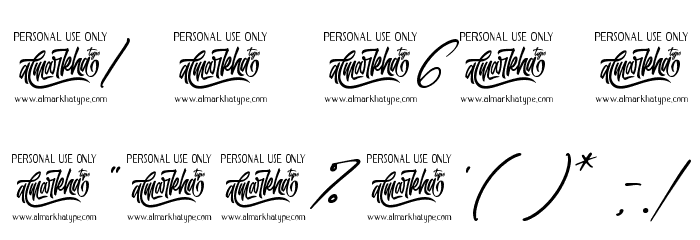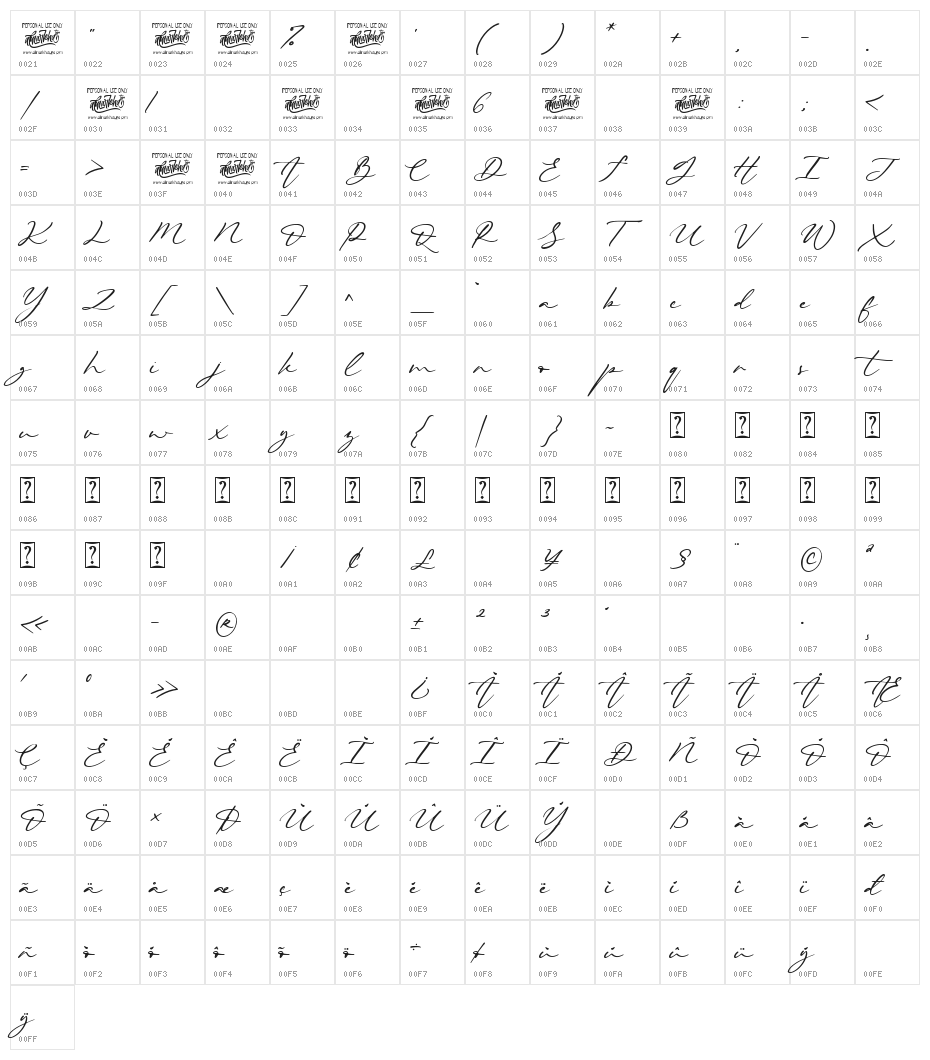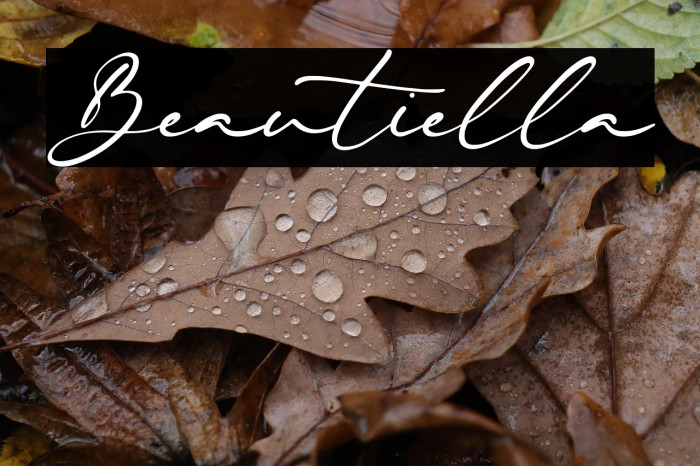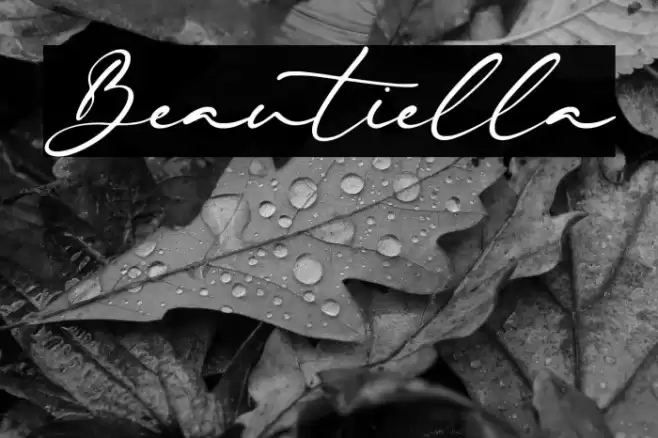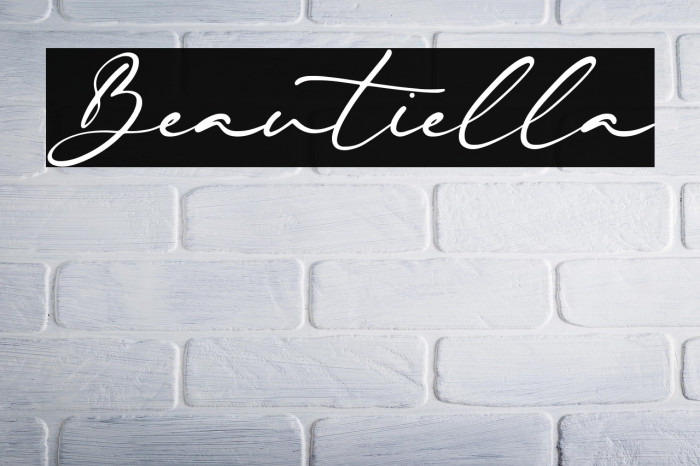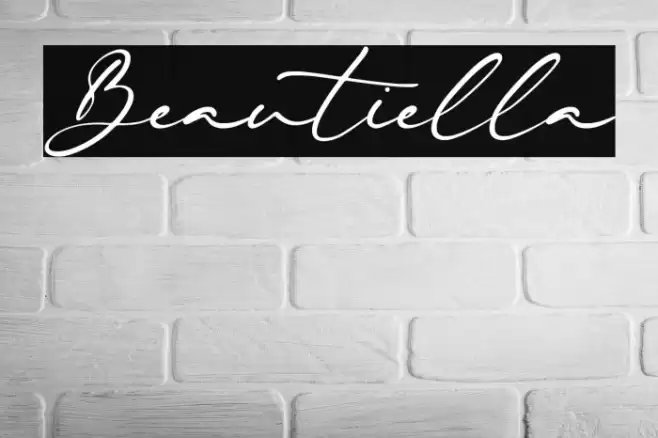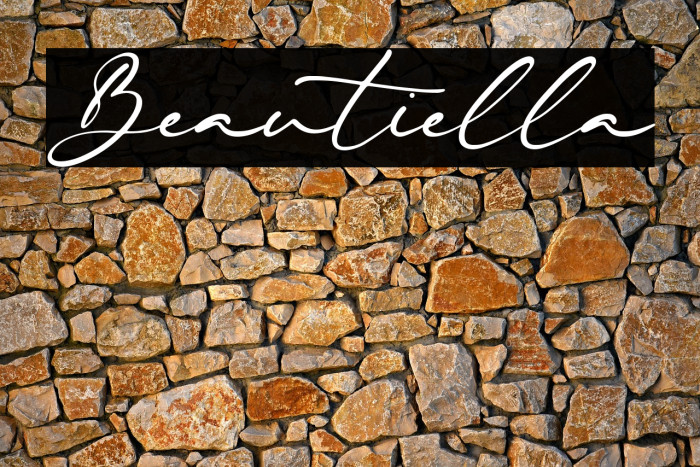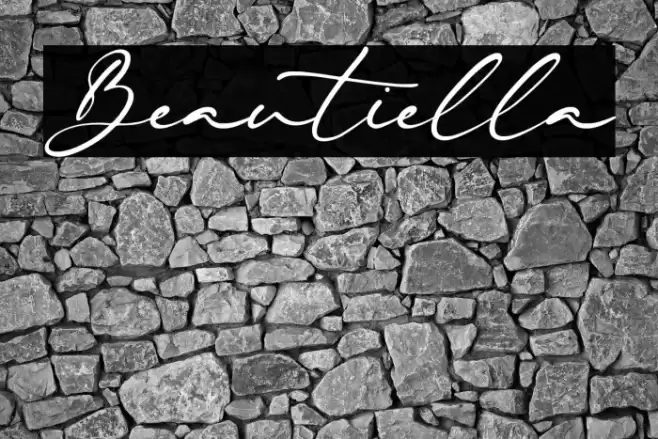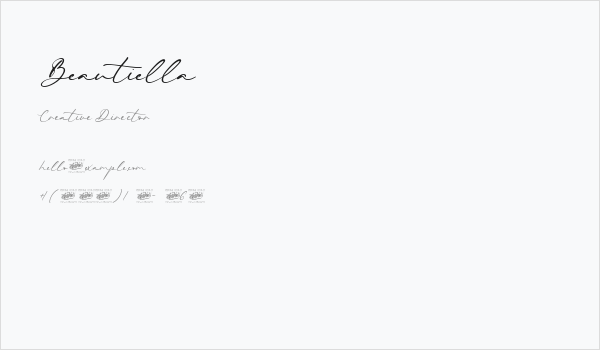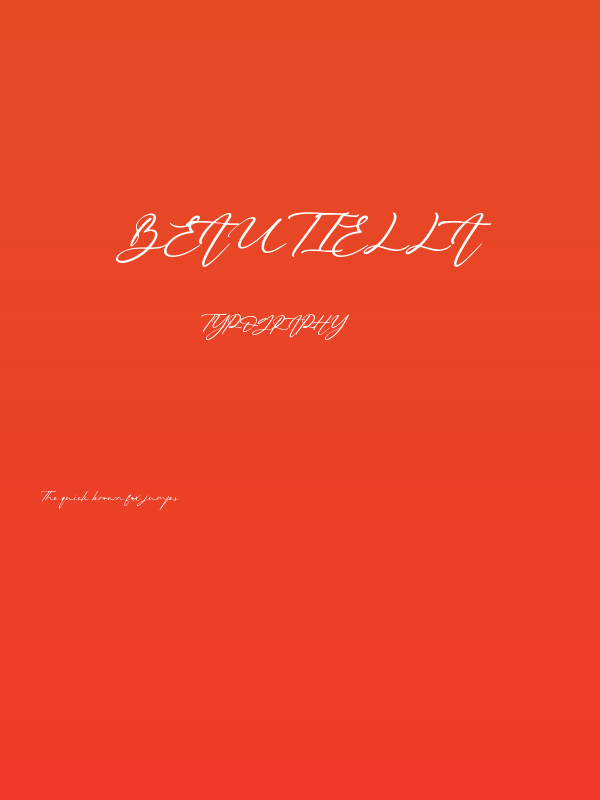
Beautiella Font
Beautiella Description
This font features an elegant, flowing script style that mimics the fluidity of natural handwriting. The uppercase letters are characterized by their sweeping curves and elongated strokes, giving them a graceful and sophisticated appearance. The lowercase letters maintain a consistent flow, with smooth connections between each character, enhancing the overall readability. The numbers and special characters are designed to complement the alphabet, maintaining the same fluid and artistic style. This font exudes a sense of elegance and personal touch, making it ideal for projects that require a handwritten aesthetic.